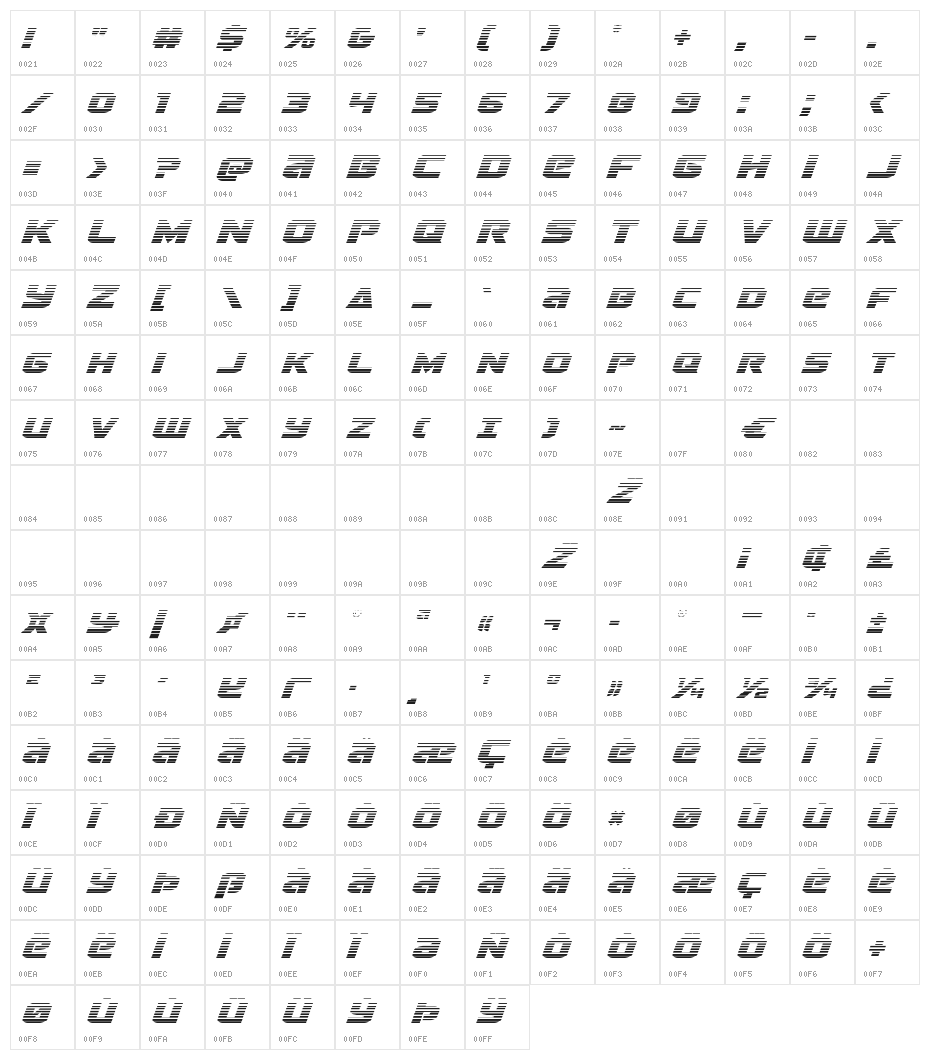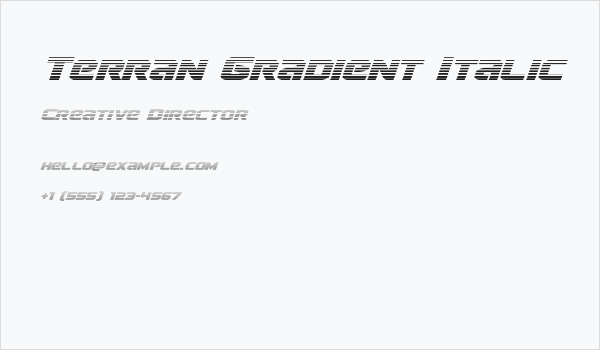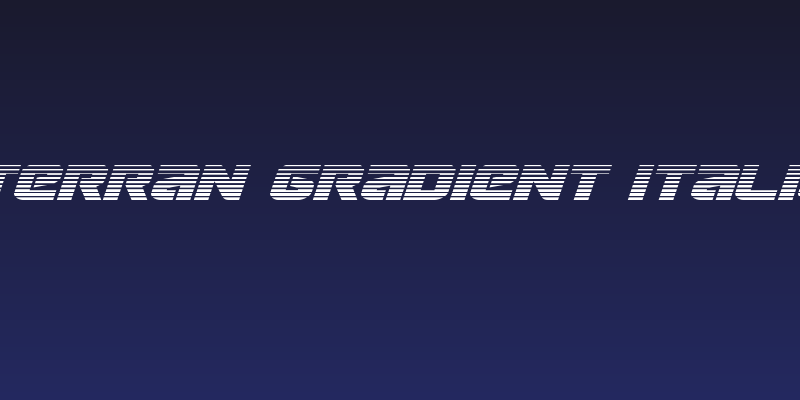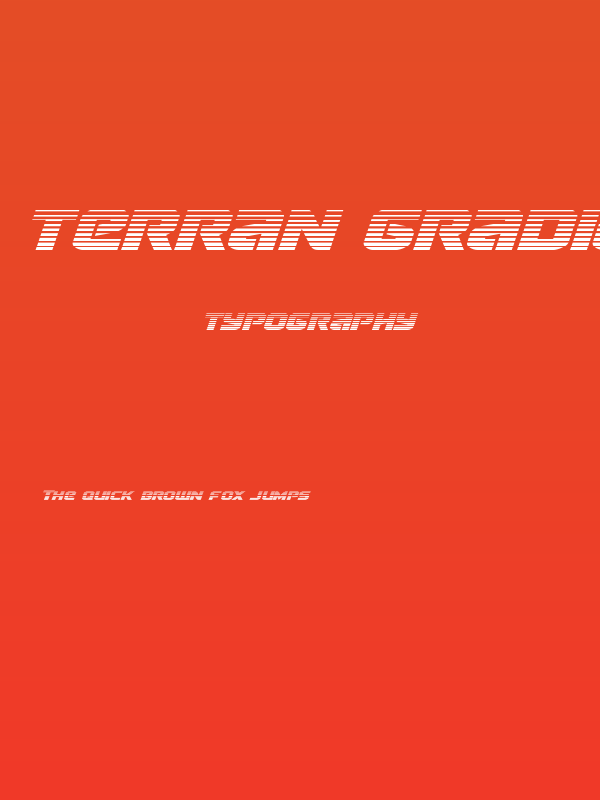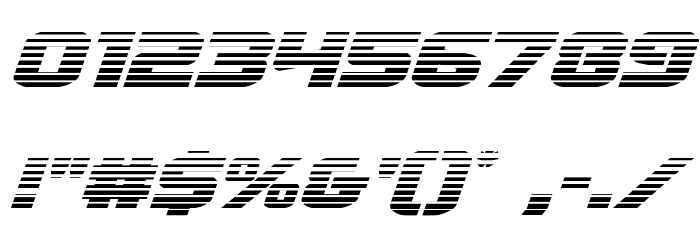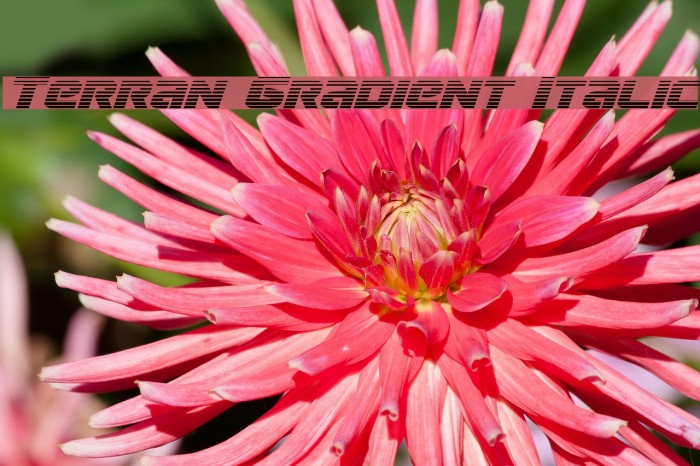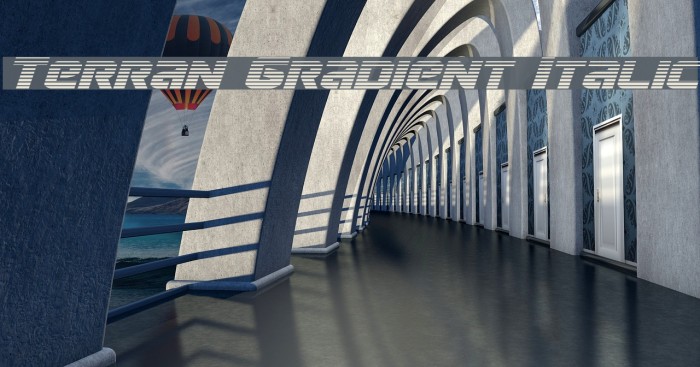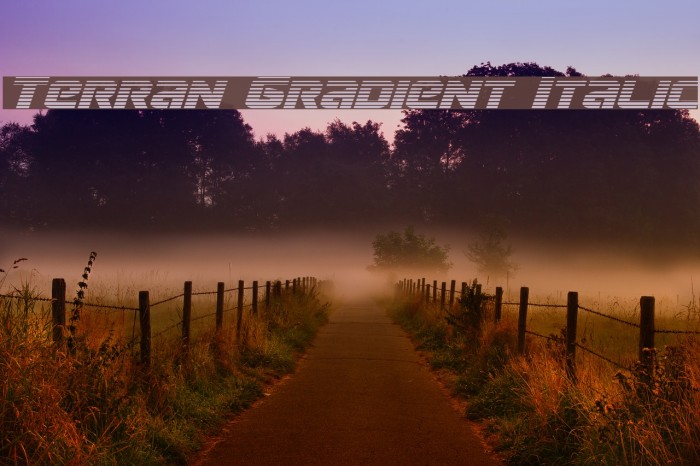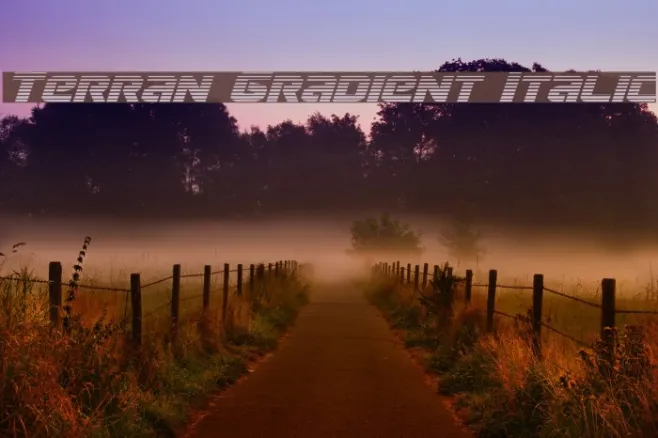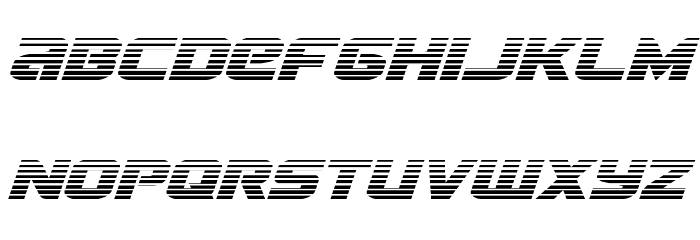
Terran Gradient Italic Font
Terran Gradient Italic Description
This font features a futuristic and dynamic design with a distinct italic slant. Each character is composed of horizontal lines that create a gradient effect, giving the font a sense of movement and energy. The bold and angular shapes of the letters enhance its modern and tech-inspired aesthetic. The uppercase and lowercase letters maintain a consistent style, while the numbers and special characters integrate seamlessly with the overall design. This font is ideal for projects that require a bold and eye-catching typeface with a contemporary edge.
| Proposed Projects | Ideal for technology branding, sci-fi themed designs, video game titles, and modern advertising. |